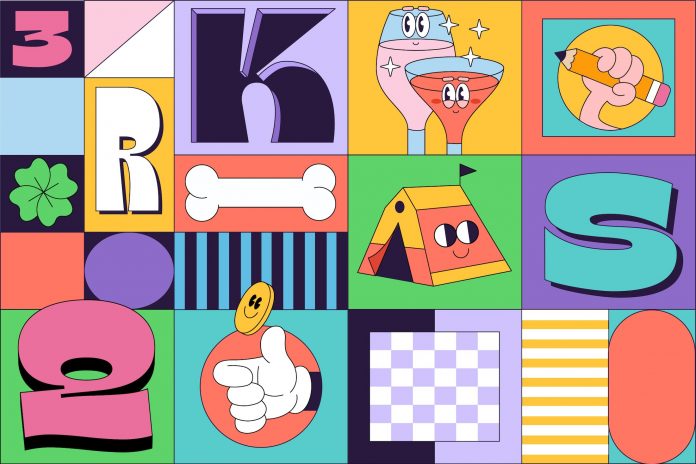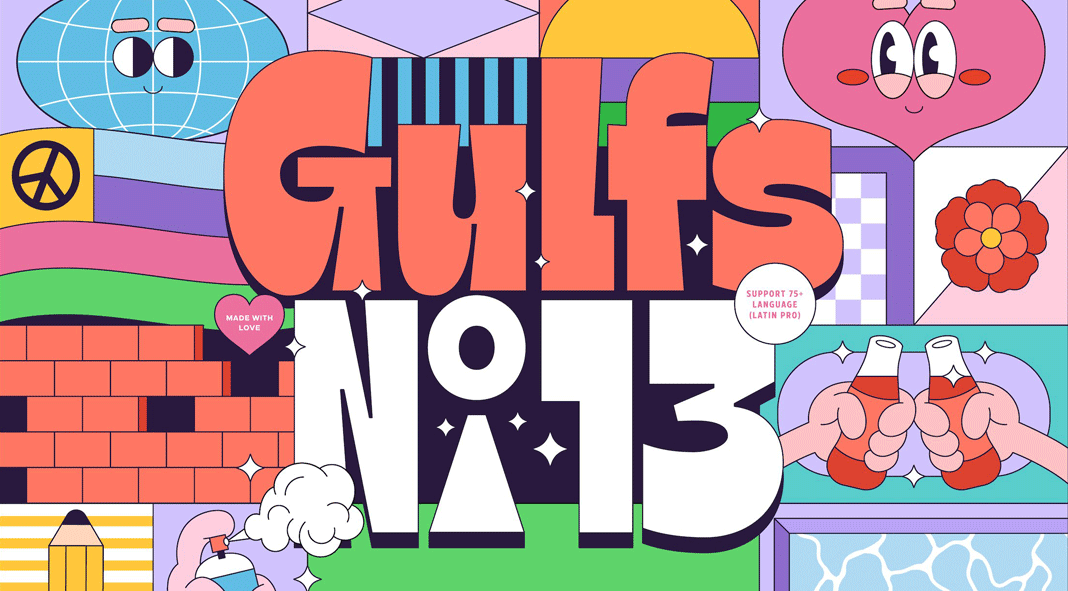
Gulfs Display, a fun and playful typeface designed and published by Studio Sun.
The Gulfs Display font draws inspiration from the playful cartoons and comic books of the 90s. Equipped with six widths including condensed, semi condensed, normal, semi expanded, and extra expanded, this fun typeface is a great choice for both modern and vintage designs. It works quite well combined with bold graphics and illustrations. This font is also well suited for branding projects, logo design, or packaging. There are countless possibilities. To learn more, just click on the following link.